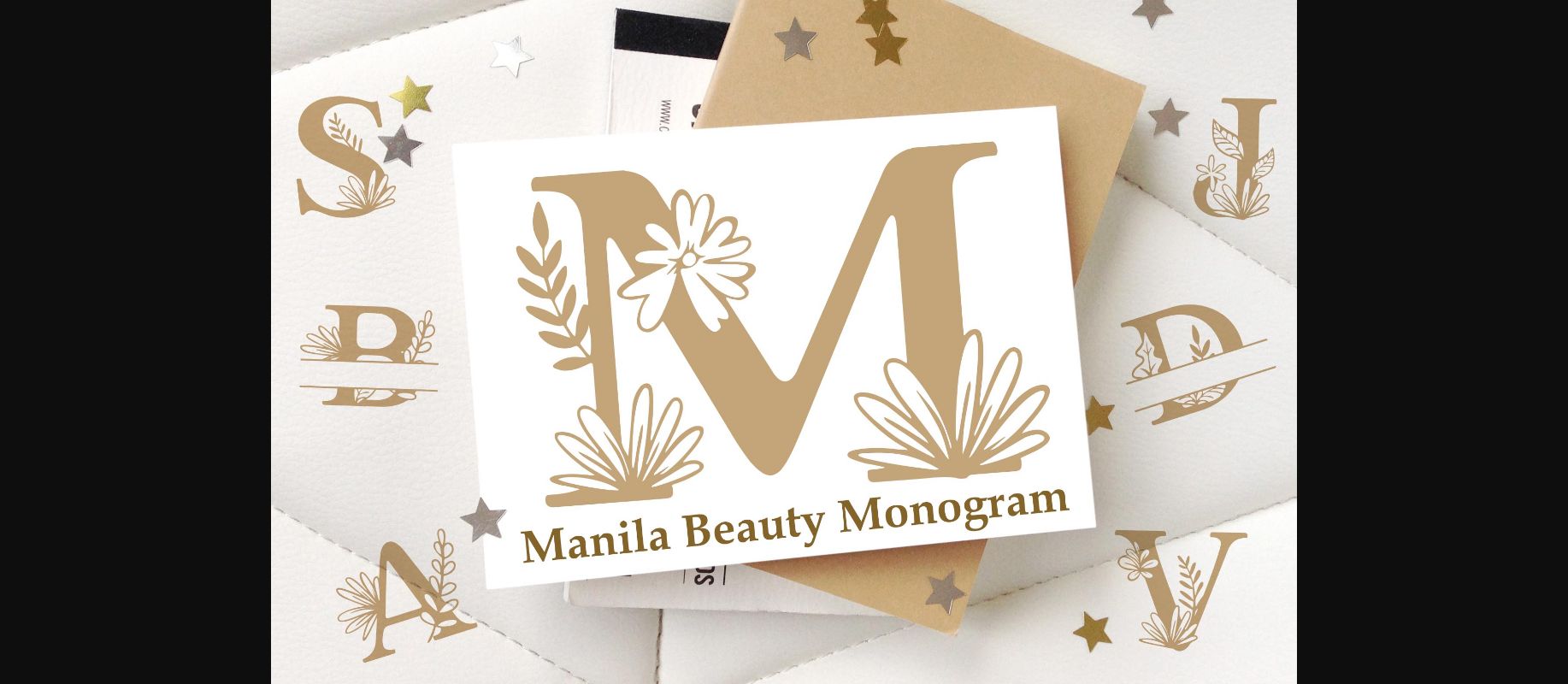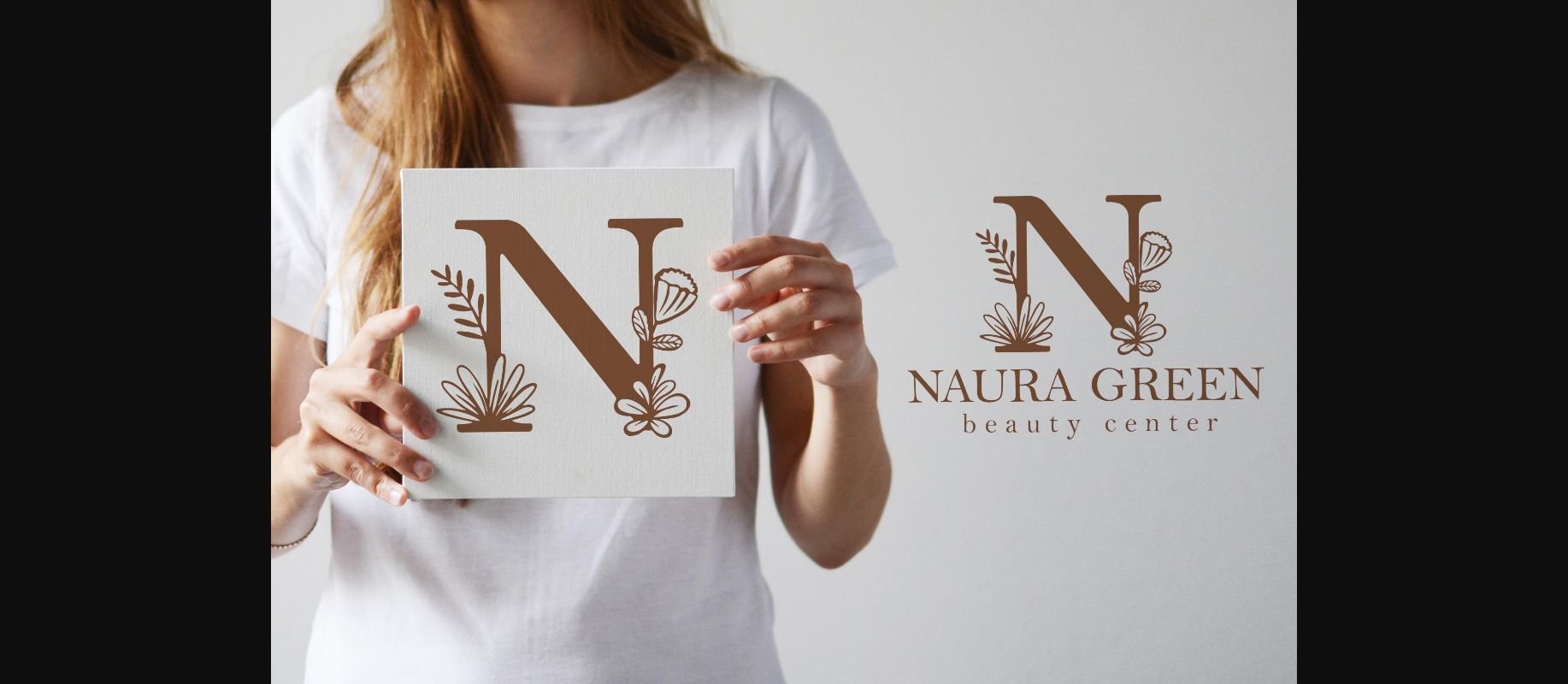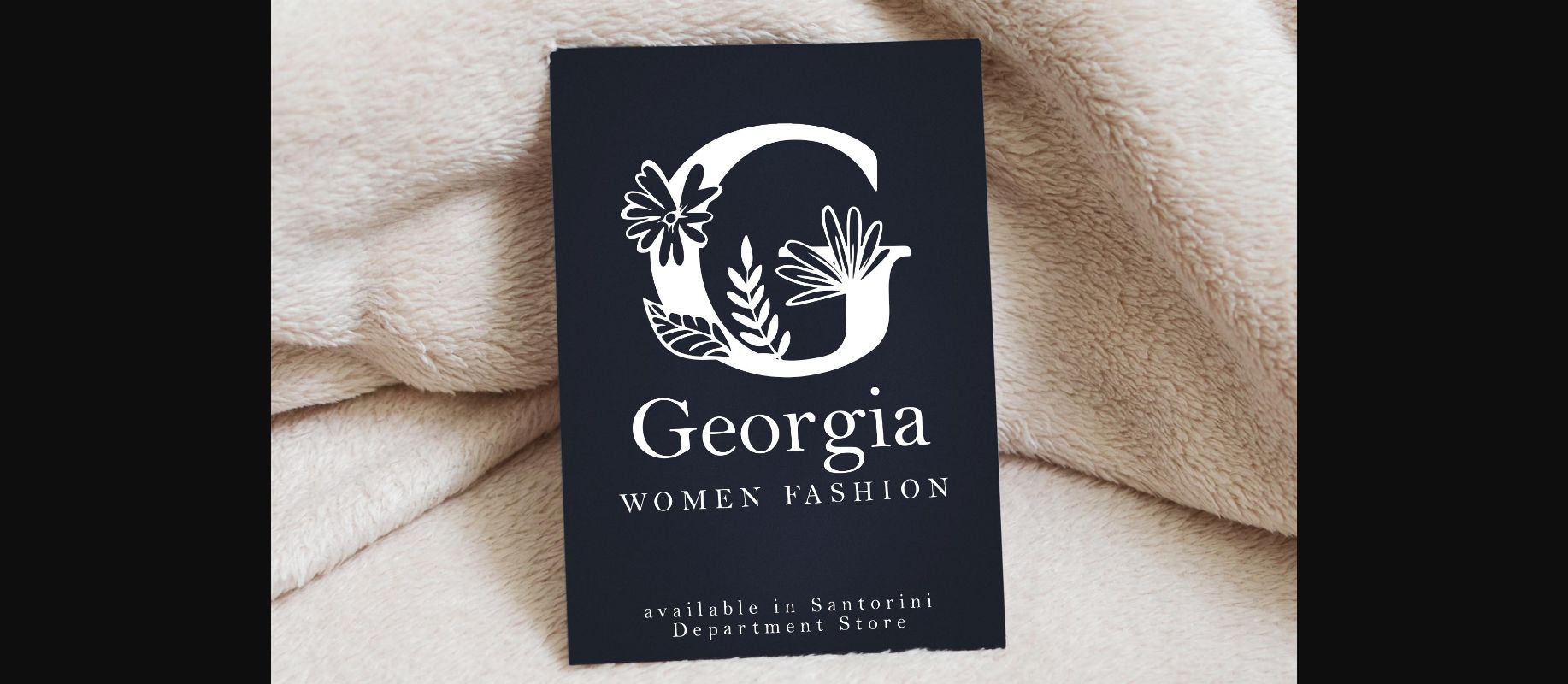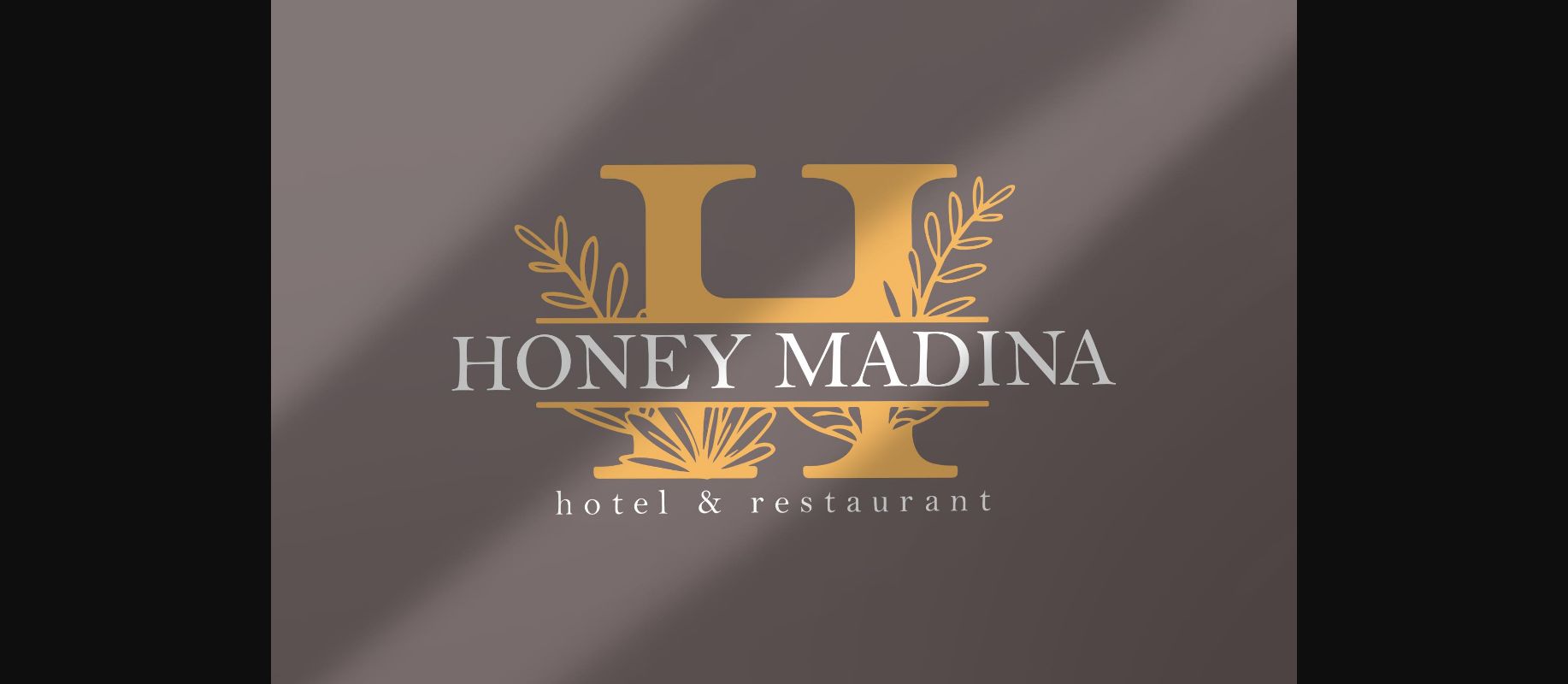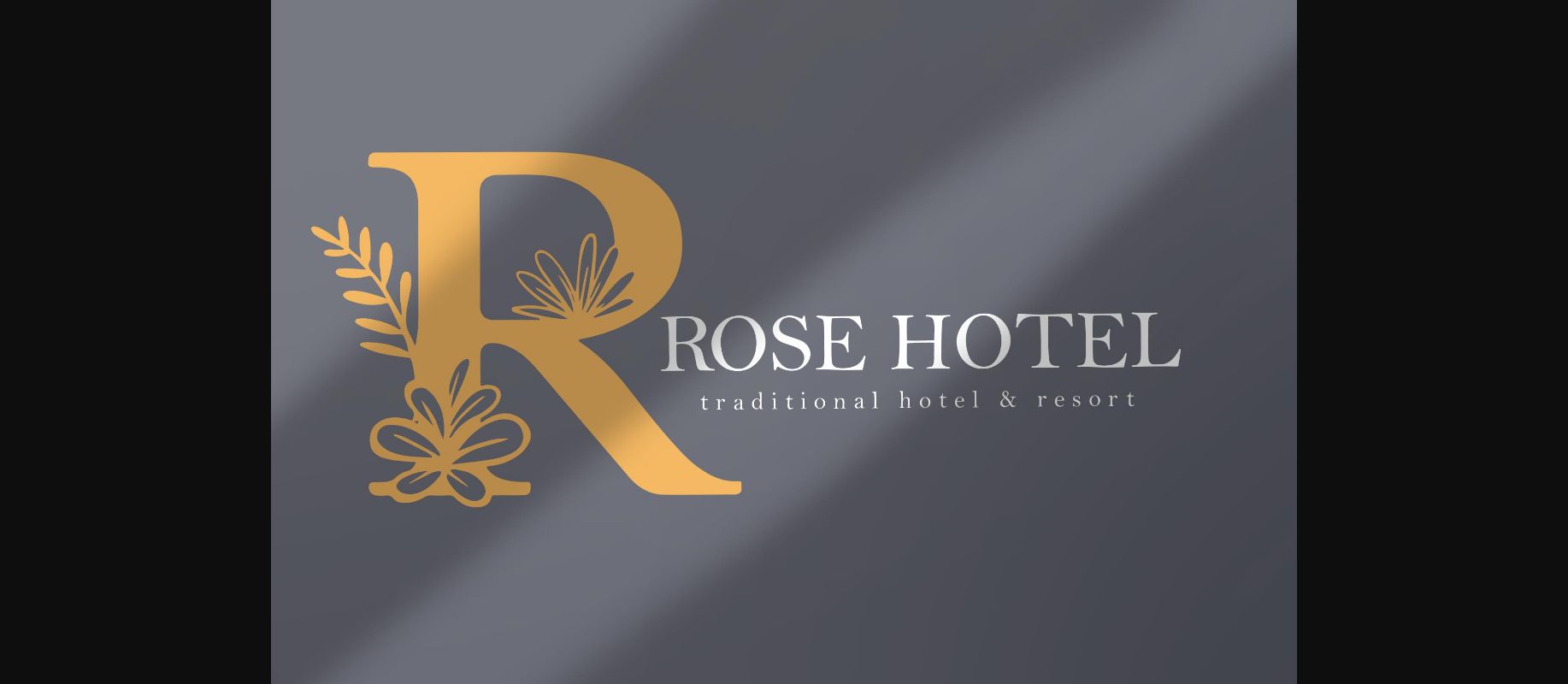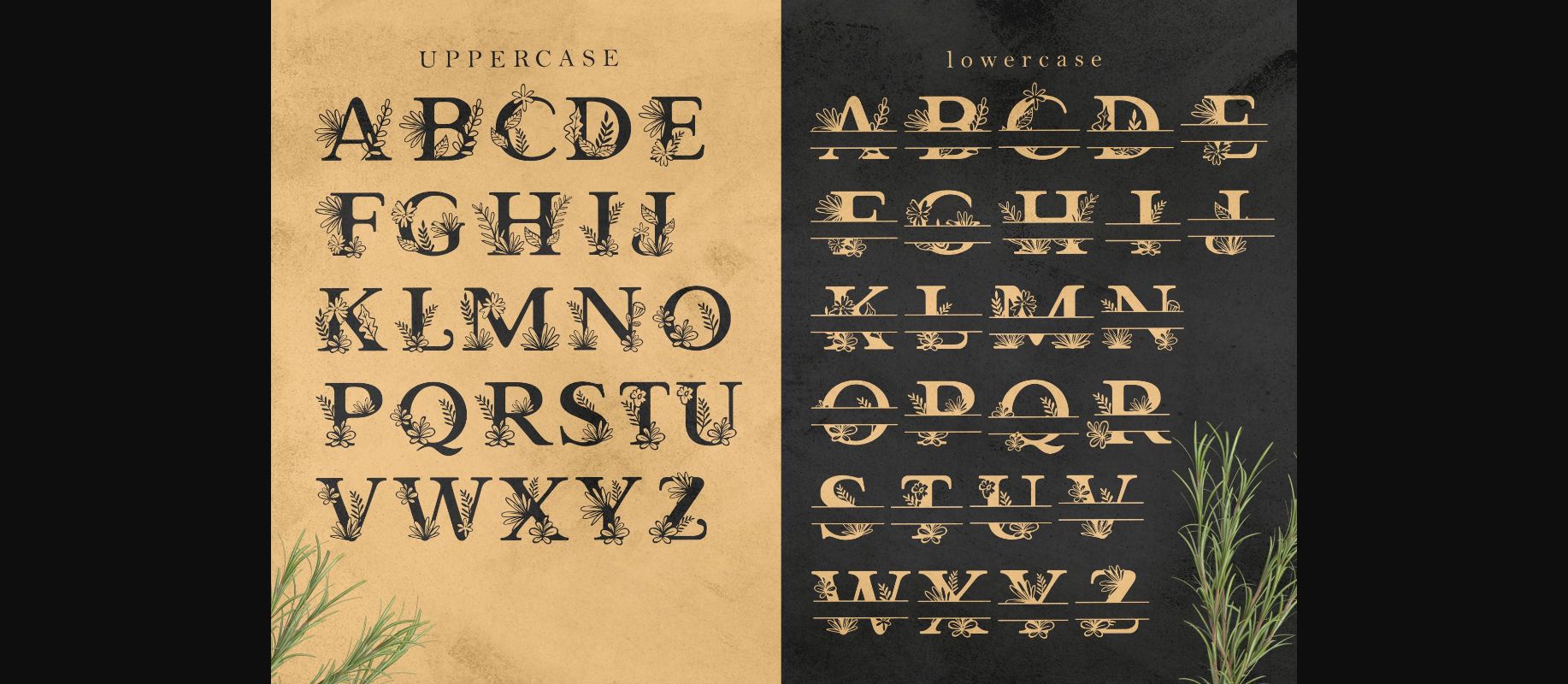
Manila Beauty Monogram Font
About Manila Beauty Monogram Font
Manila Beauty Monogram is a sweet decorative font, featuring lovely flower ornaments. Fall in love with its authentic feel and use it to create gorgeous wedding invitations, beautiful stationary art, eye-catching social media posts, and cute greeting cards.